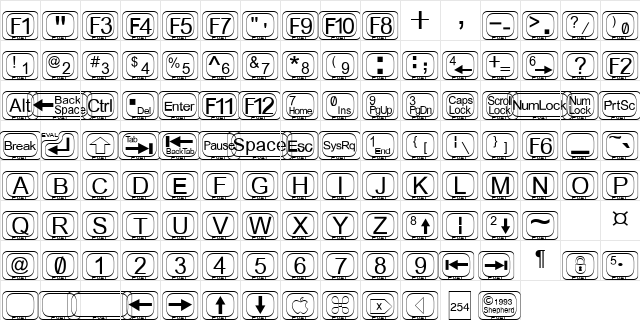
Complete spKeys Normal glyph index. Displaying only characters natively supported by spKeys Normal font.
spKeys is a composed and adaptable typeface that performs quietly and consistently across a wide range of design contexts.